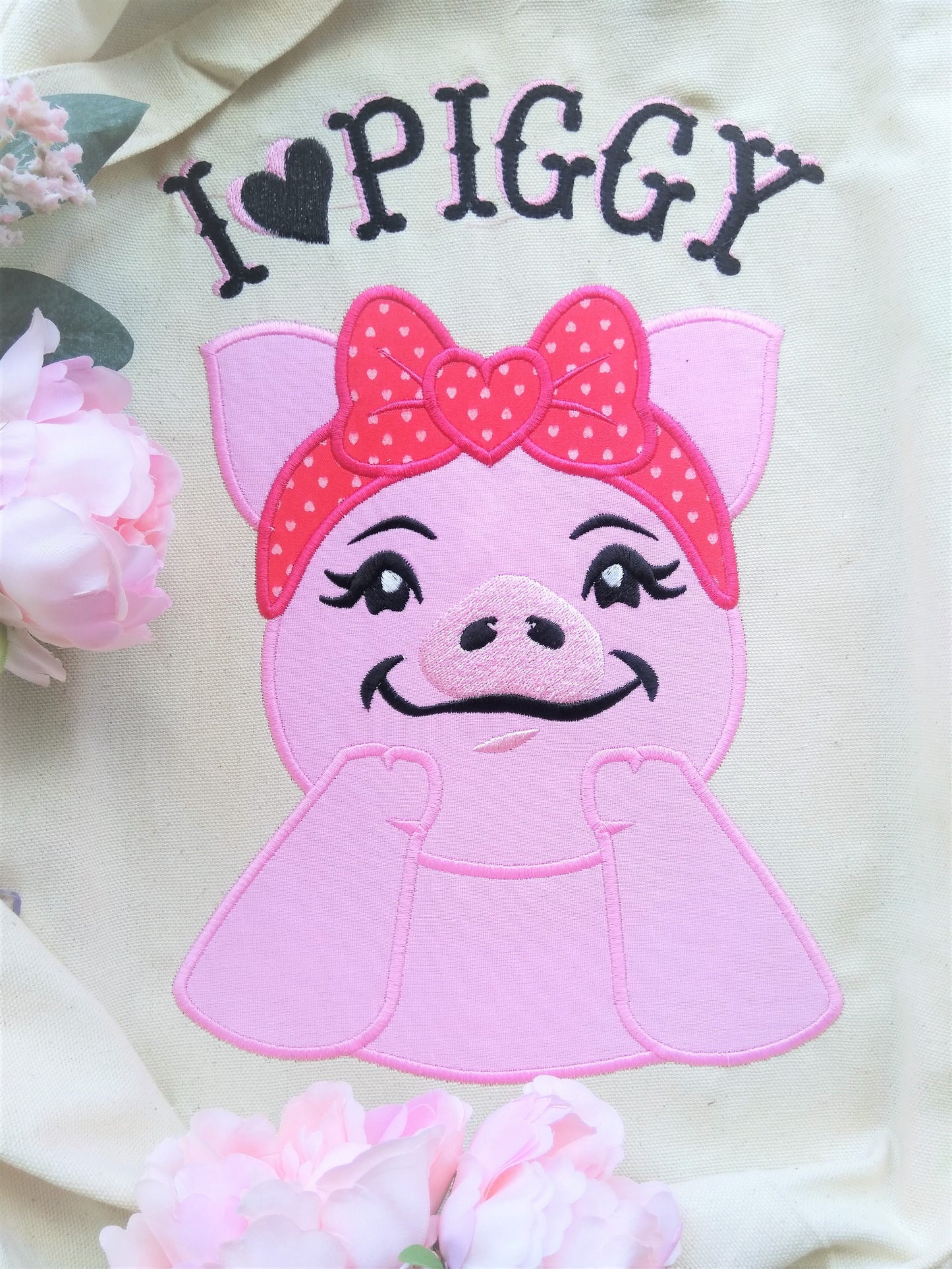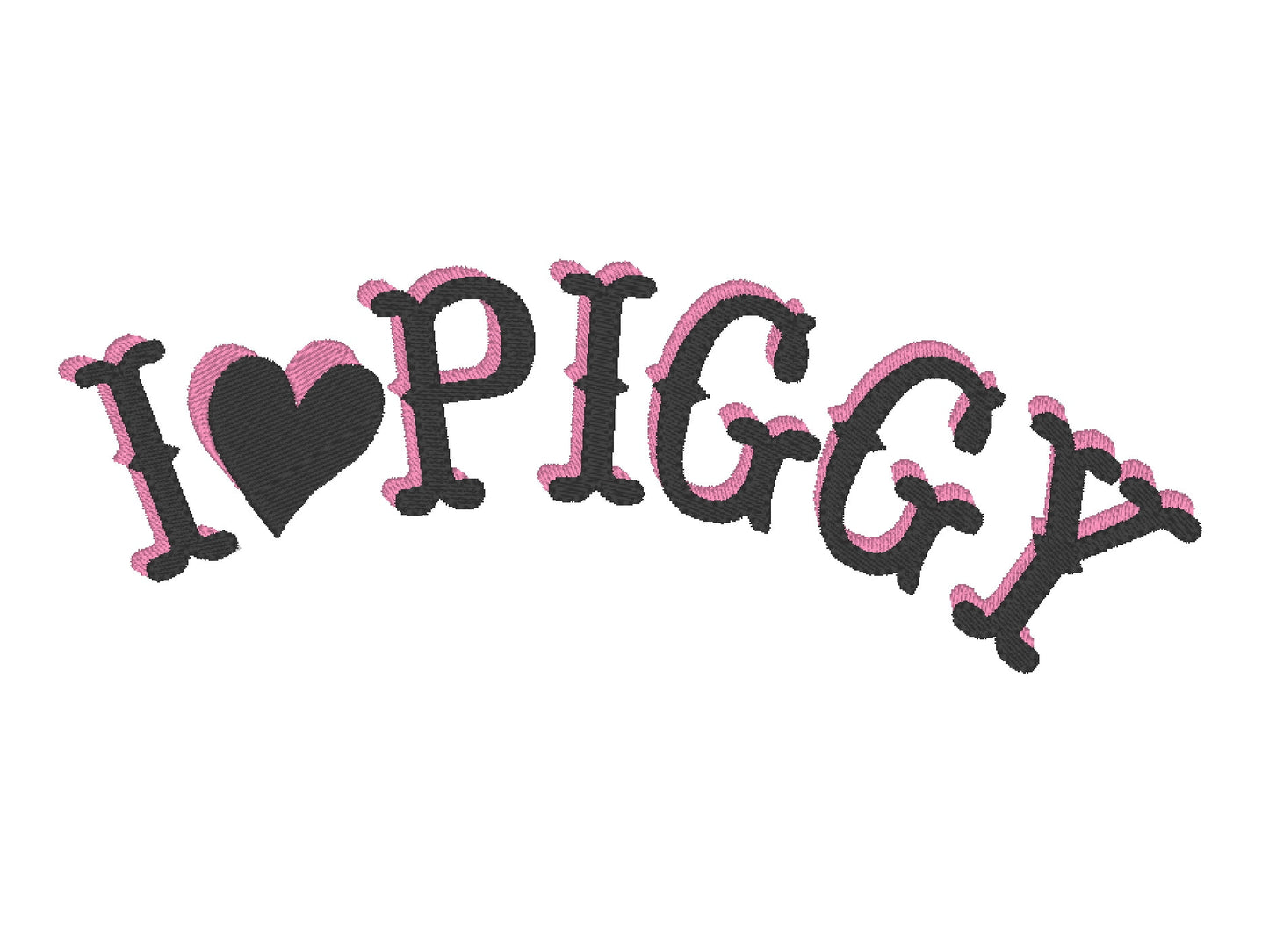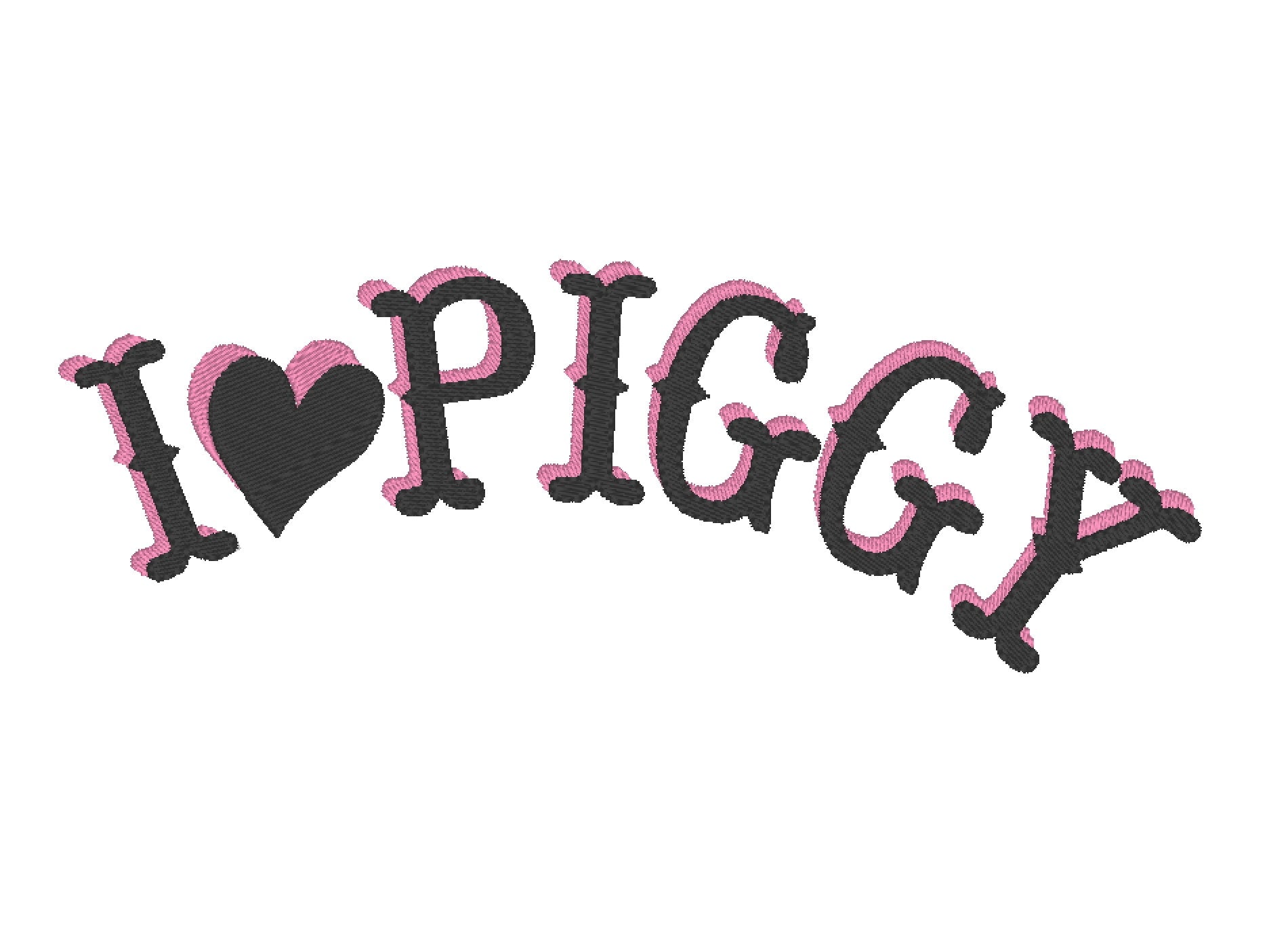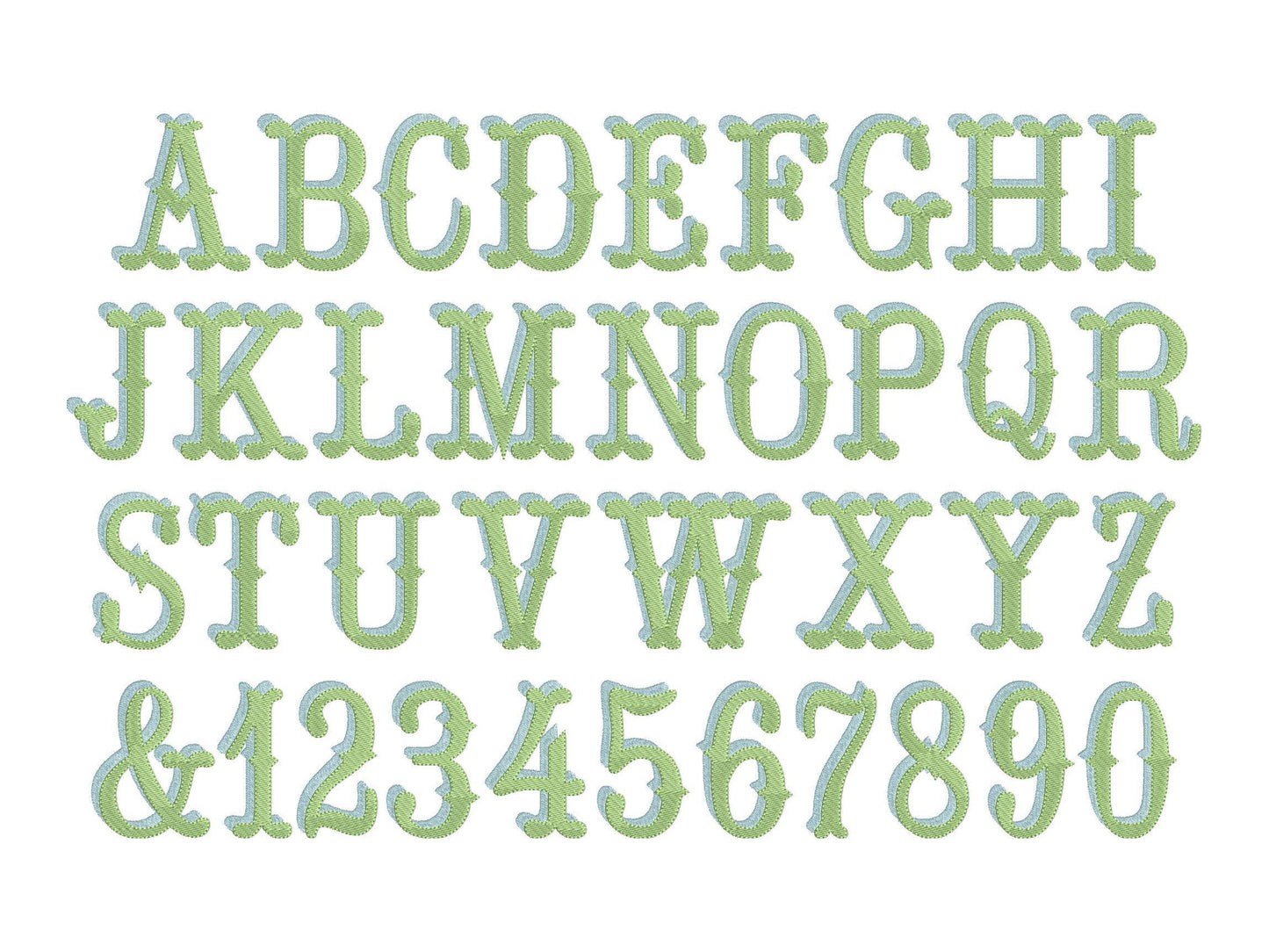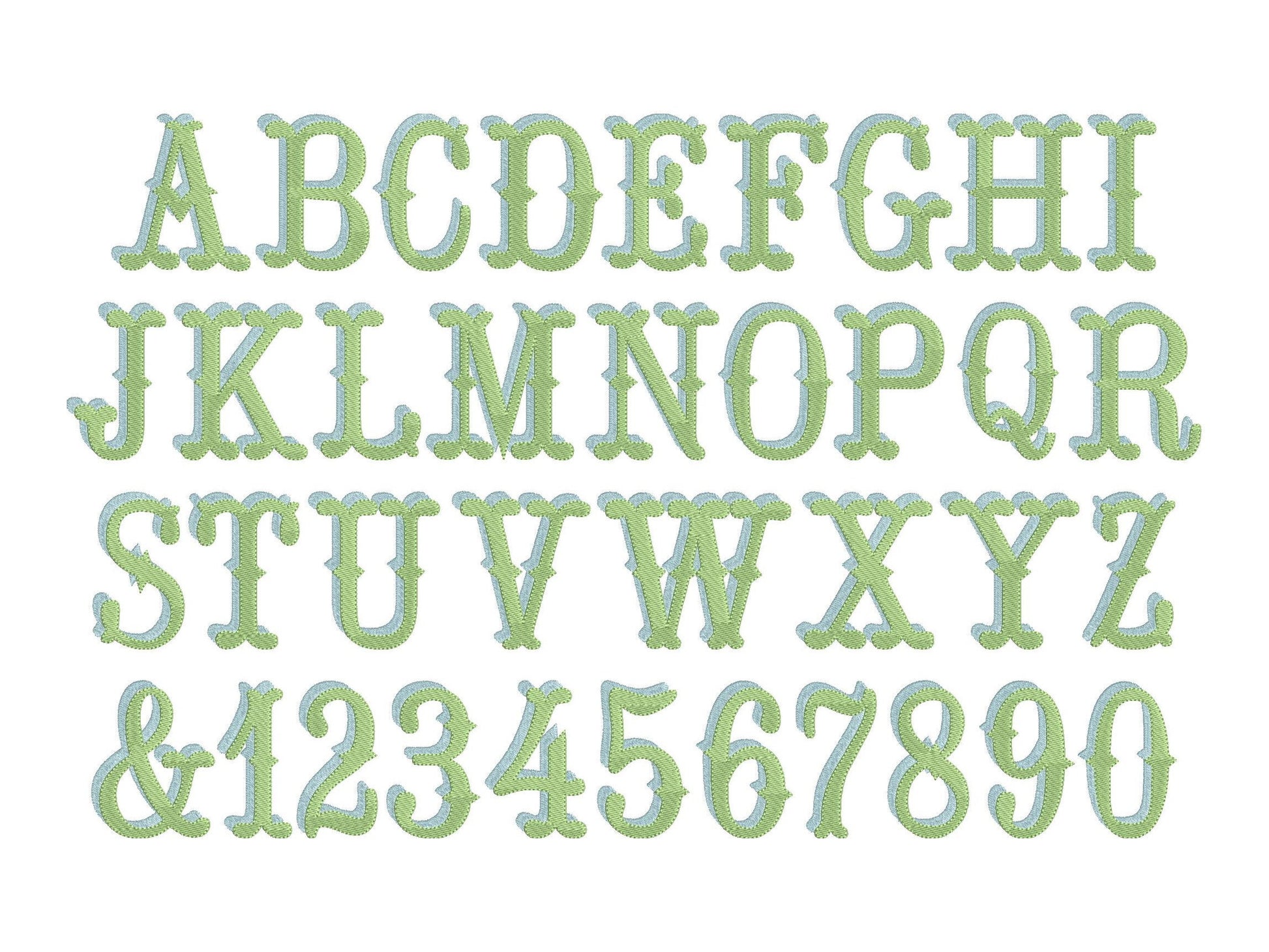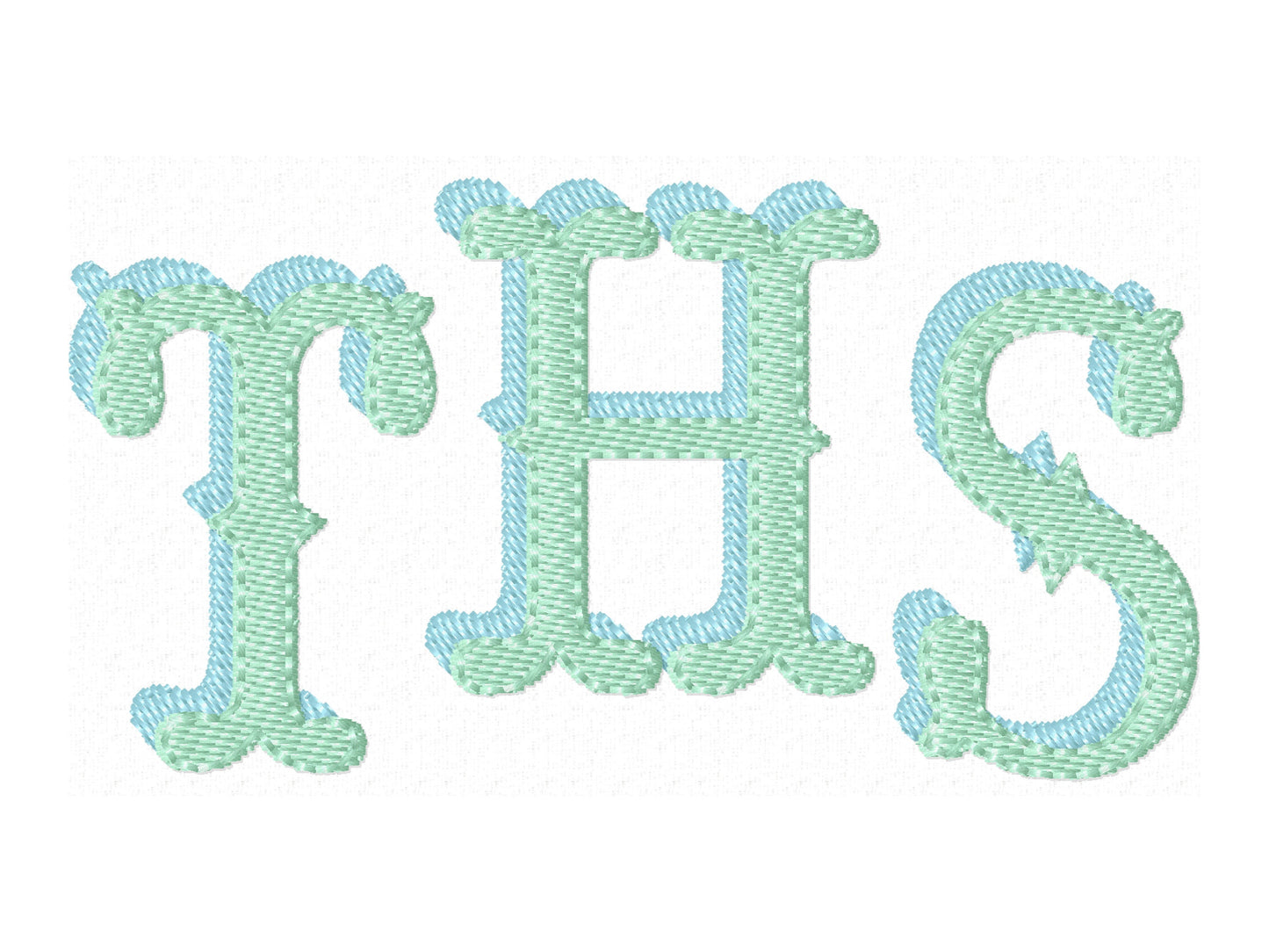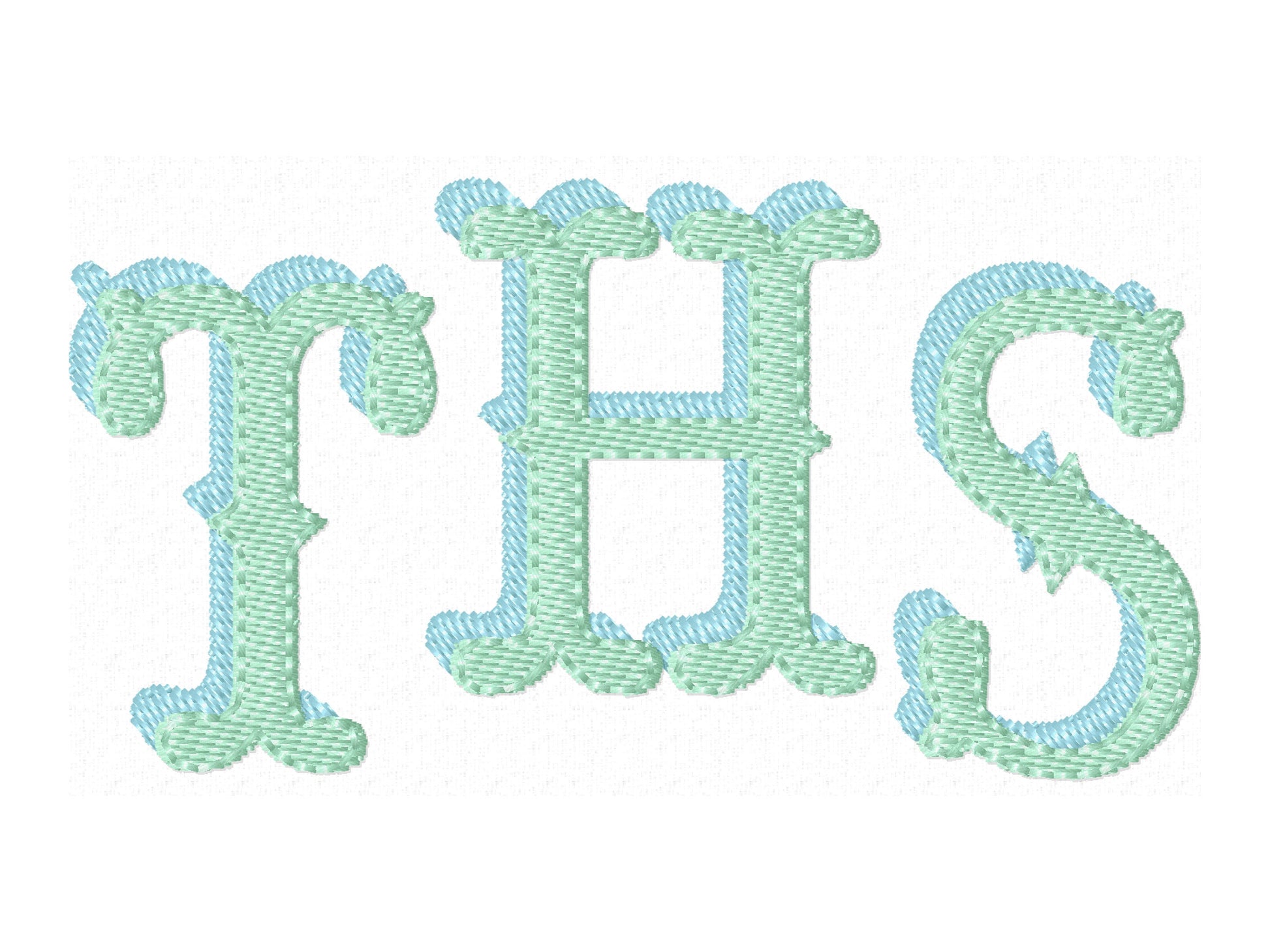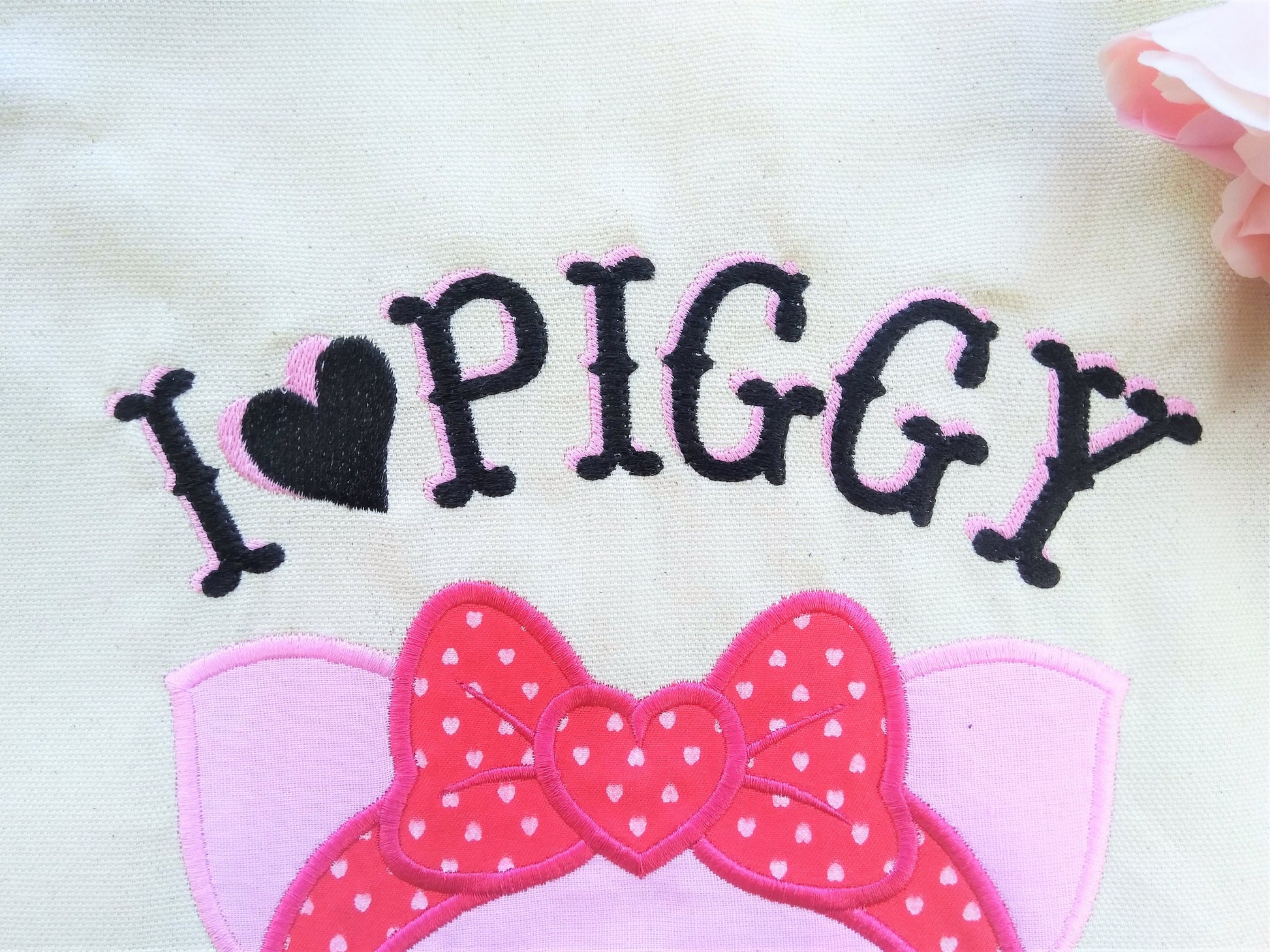
Western Shadow Font
The letters come in six sizes: 1.5, 2, 2.5, 3, 3.5 and 4 inches. Western saloon style letters with a shadow behind them. Includes uppercase letters A to Z, numbers 0 to 9 and an ampersand.
- Western saloon shadow font
- Uppercase A to Z, numbers 0 to 9, ampersand
- 6 sizes, 1.5 to 4 in